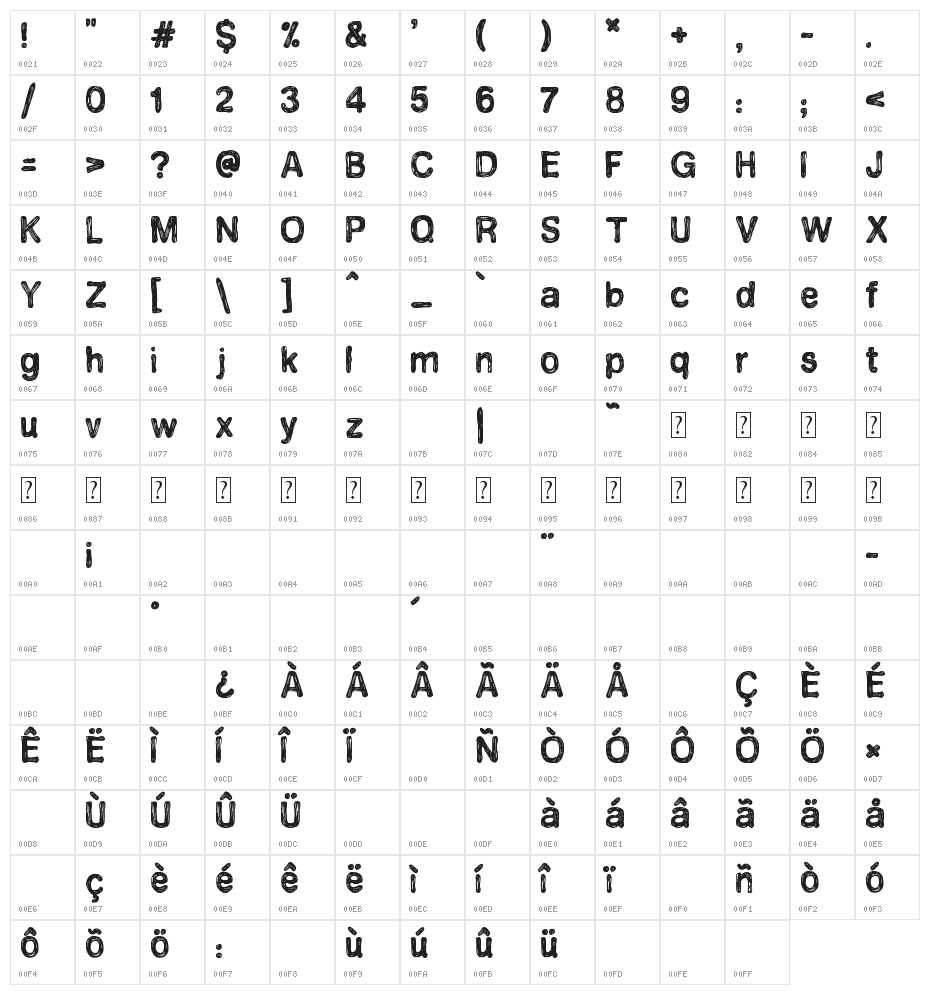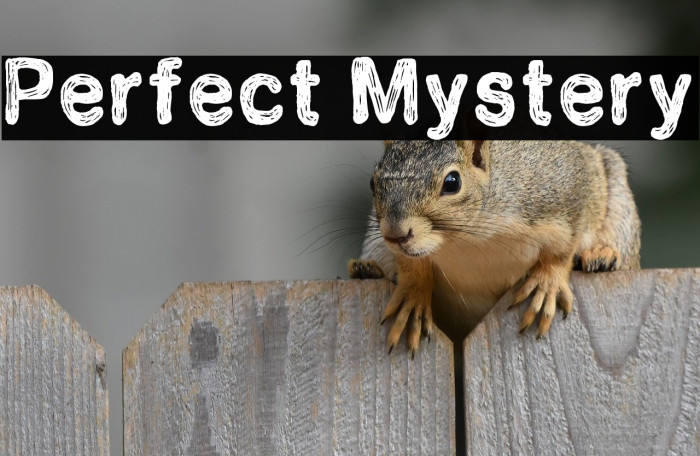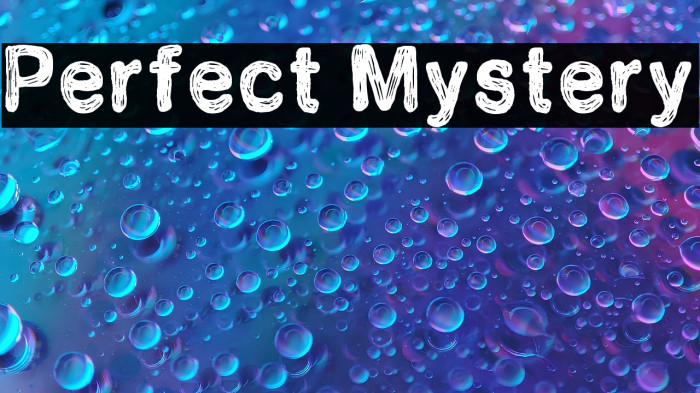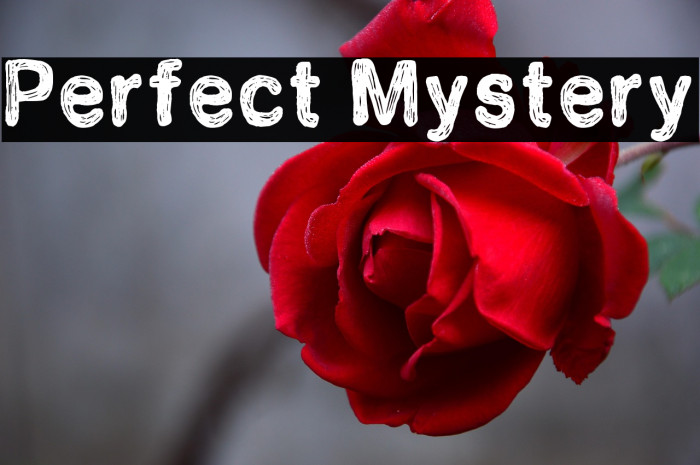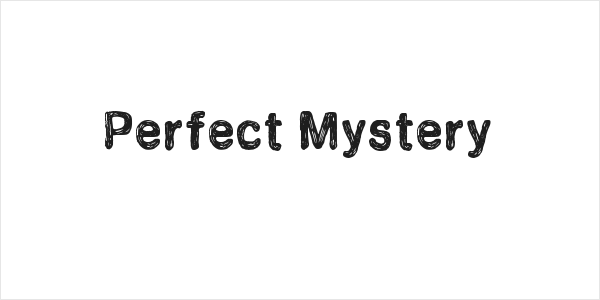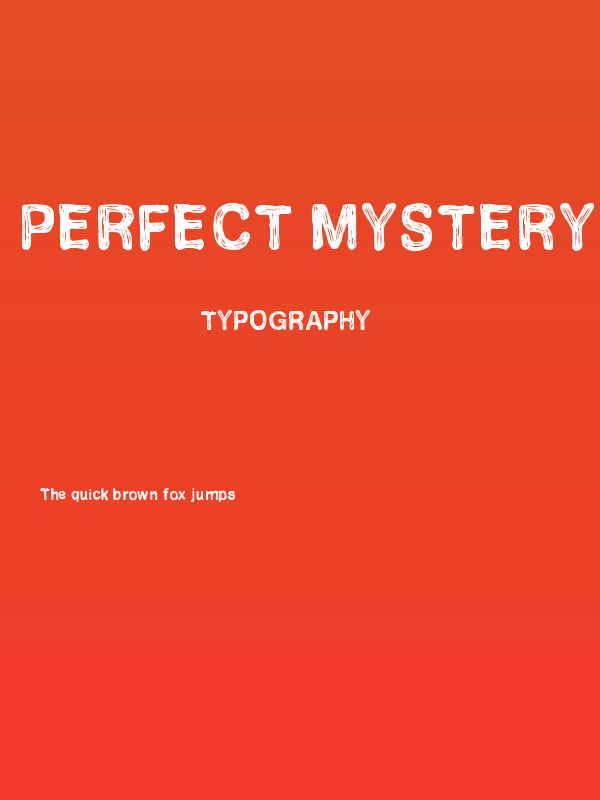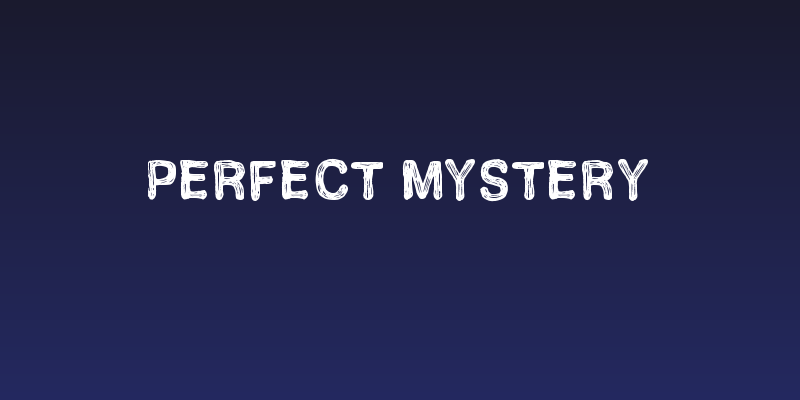
Perfect Mystery Font
Perfect Mystery Description
This font features a bold, hand-drawn style with a playful and artistic flair. Each character is uniquely crafted with uneven strokes and a textured appearance, giving it a lively and dynamic feel. The letters have a slightly irregular shape, adding to the whimsical and informal nature of the font. It captures a sense of creativity and spontaneity, making it ideal for projects that require a personal touch. The numbers and special characters maintain the same hand-drawn aesthetic, ensuring consistency across all elements.
| Proposed Projects | Ideal for creative projects such as children's books, posters, greeting cards, and playful branding. |